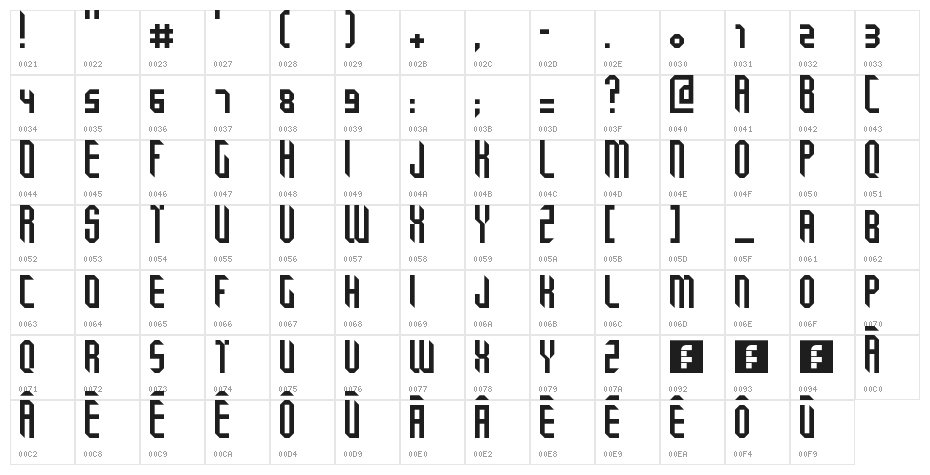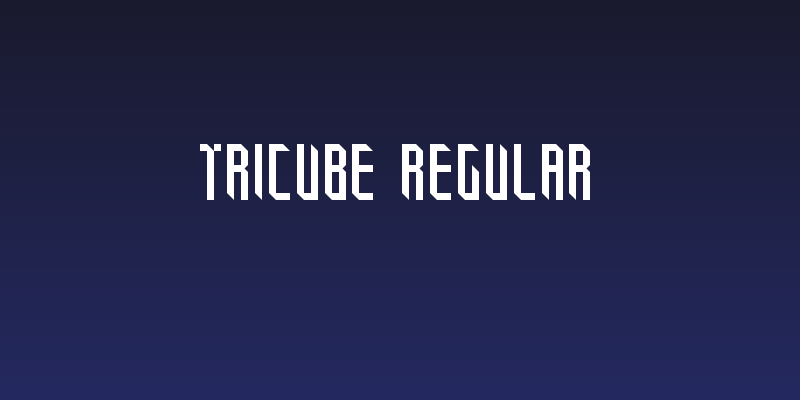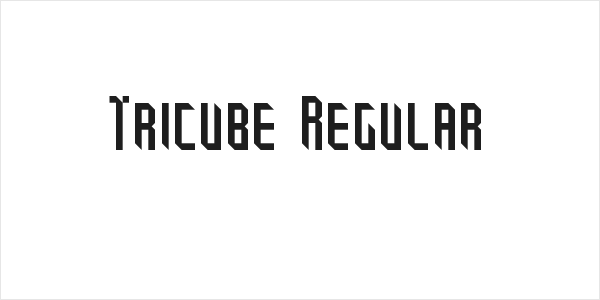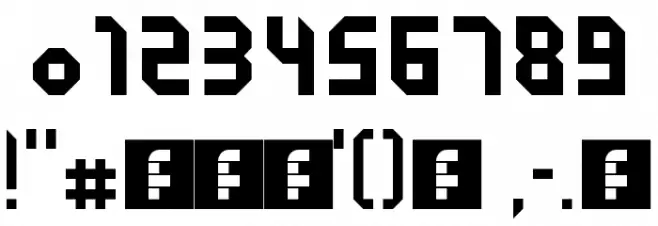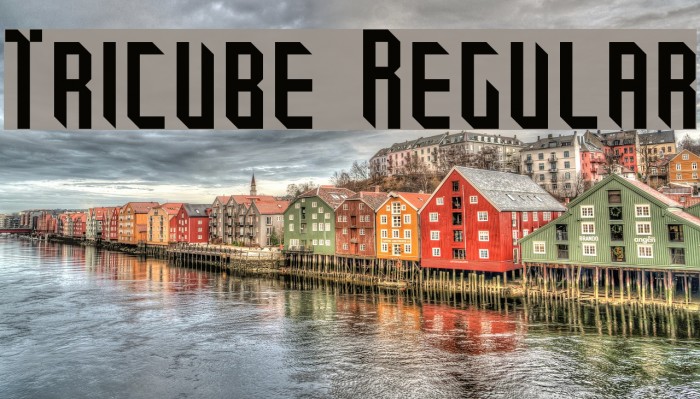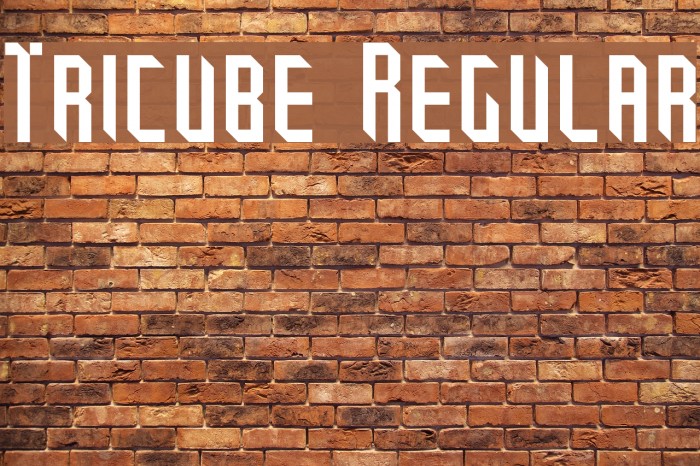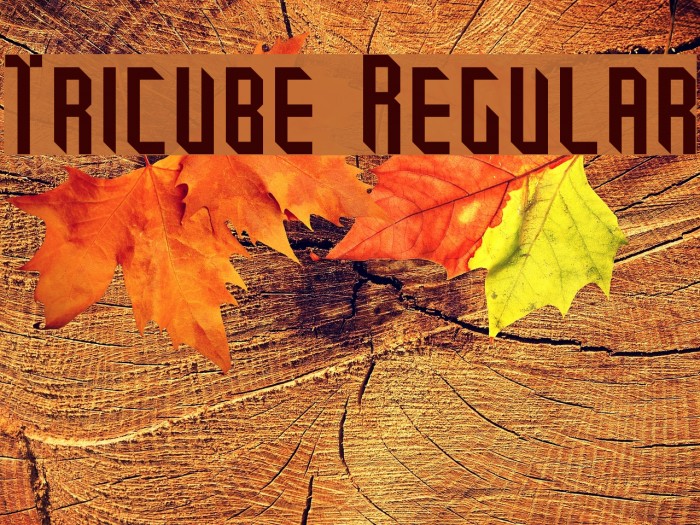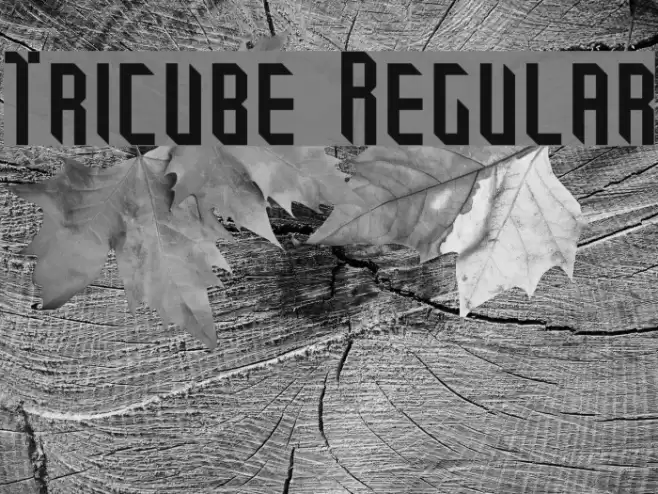
Tricube Regular Font
Tricube Regular Description
This font features a bold, geometric design with a futuristic and modern aesthetic. The characters are constructed with sharp angles and straight lines, giving it a distinct, edgy appearance. The uppercase and lowercase letters maintain a consistent style, with uniform stroke widths and a blocky structure. Numbers and special characters follow the same design principles, ensuring a cohesive look across all glyphs. The font's unique style makes it stand out, ideal for projects that require a strong visual impact.
| Proposed Projects | Ideal for sci-fi themed designs, video game graphics, technology branding, and modern posters. |